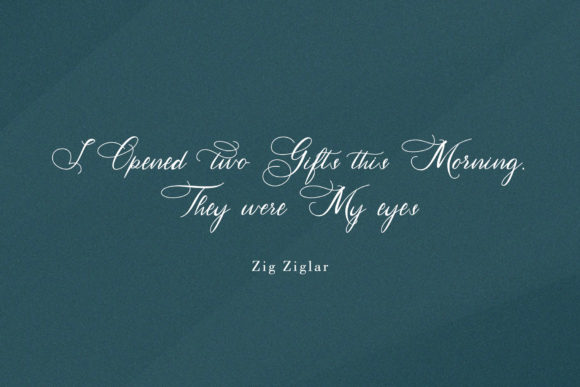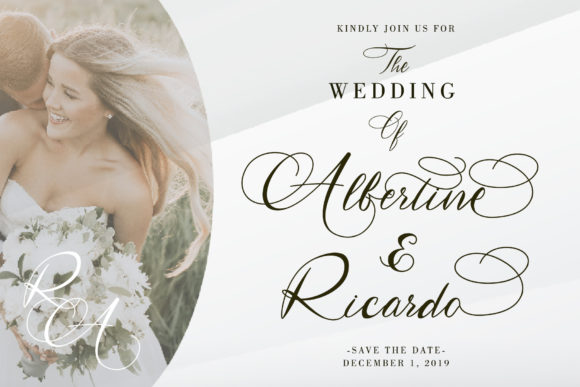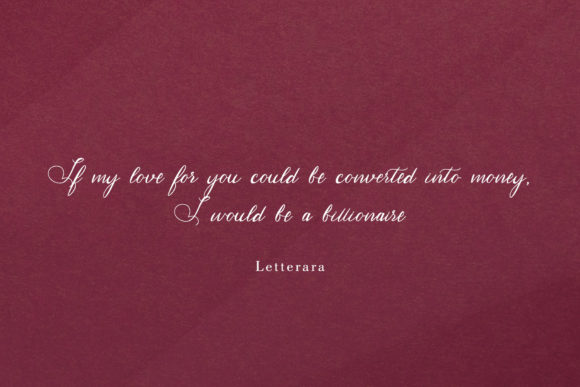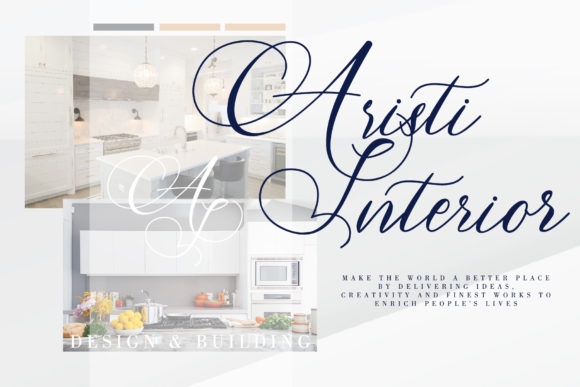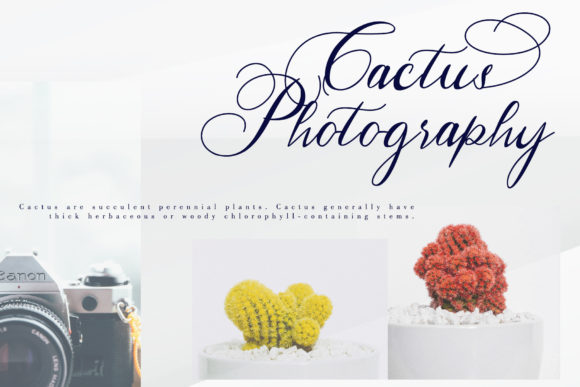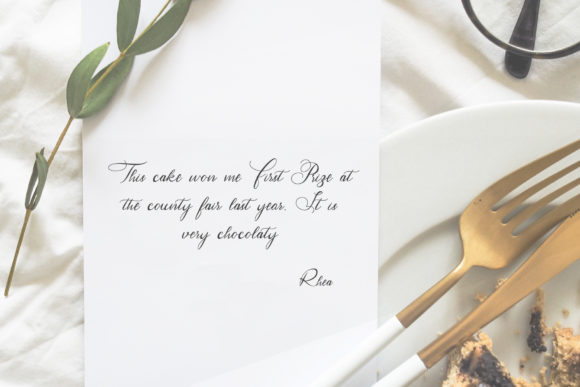
Introduction to Hertina Font
Hertina is a beautiful modern script font featuring flowing letters.
It will add a romantic touch to any crafting project .
Key Features of Hertina Font